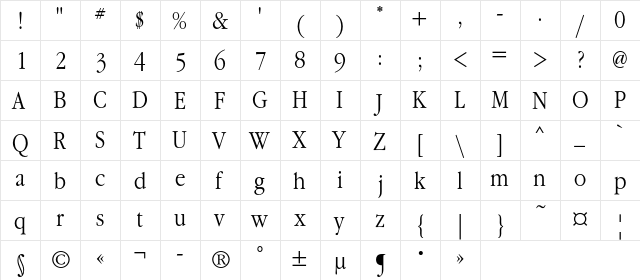
GaramondNarrowC Regular
Design Context for GaramondNarrowC Typeface
GaramondNarrowC offers clean, dependable letterforms without strong stylistic allegiance, making it a practical choice for designers who need flexibility. Its narrow stance lets it pack a punch even in space-constrained designs.